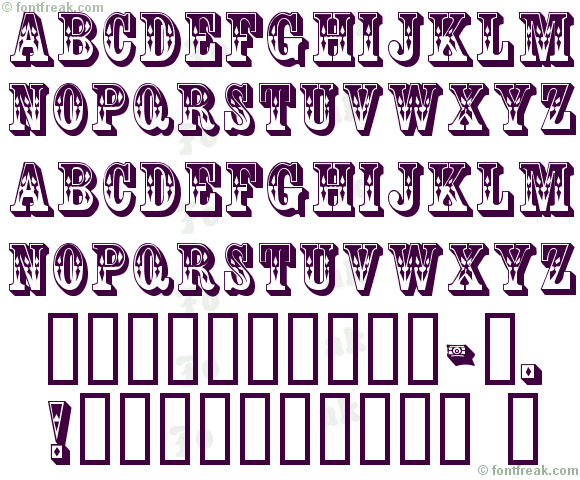
CoffeeTin Initials
The Coffee Tin font, designed by Richard Mueller, is a captivating display typeface that seamlessly blends rustic charm with modern aesthetics. As a decorative font, it draws inspiration from the warmth and familiarity associated with coffee culture, making it an ideal choice for projects that require a touch of personality and flair. The font features a unique design characterized by its robust, rounded letterforms, which evoke the comforting feel of a well-loved coffee tin. The moderate stroke weight and gentle contrast contribute to its legibility while maintaining an inviting presence.
Visually, the Coffee Tin font showcases a slightly condensed structure, allowing for efficient spacing without compromising on style. Each character is thoughtfully crafted with subtle decorative elements that hint at handcrafted artistry, making it perfect for a variety of creative applications. This font shines in contexts such as restaurant menus, where it can evoke the warmth of a cozy café, or on promotional materials for artisanal coffee brands. Additionally, it works wonderfully for wedding invitations, where its charming aesthetic can enhance the overall theme, or on movie posters that aim to capture a vintage vibe. Graphic designers, small business owners, and content creators will find this font a versatile tool in their design arsenal.
What sets the Coffee Tin font apart is its ability to convey both nostalgia and modernity, making it a perfect fit for projects seeking to establish a welcoming atmosphere. Its free availability as a freeware font allows even those on a budget to access this unique typeface, ensuring that creative possibilities are open to everyone. For those interested in enhancing their design projects, the Coffee Tin font free download is an opportunity not to be missed. This font truly stands out as a delightful choice for anyone looking to add a touch of character to their work.